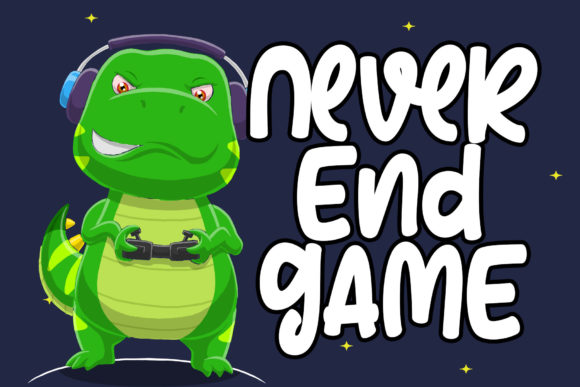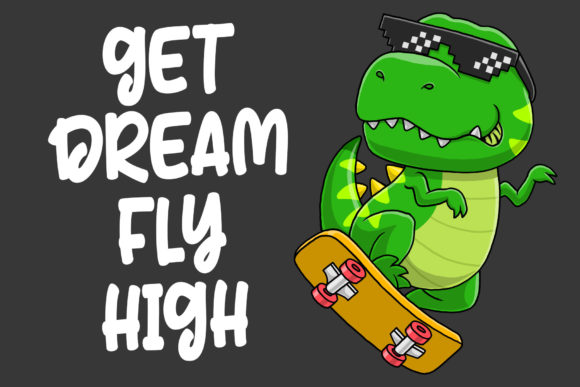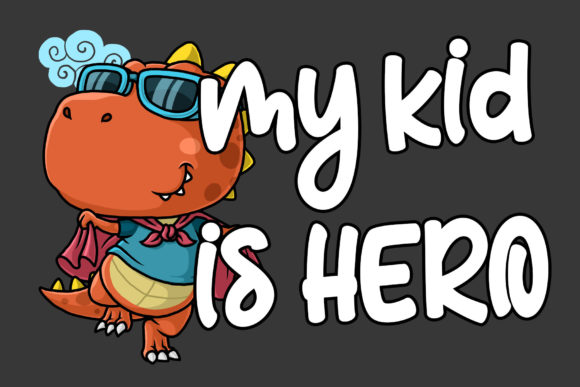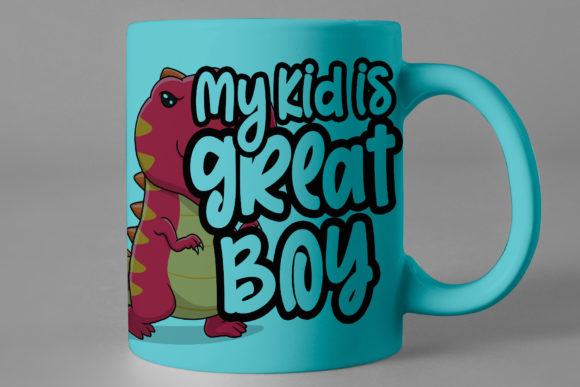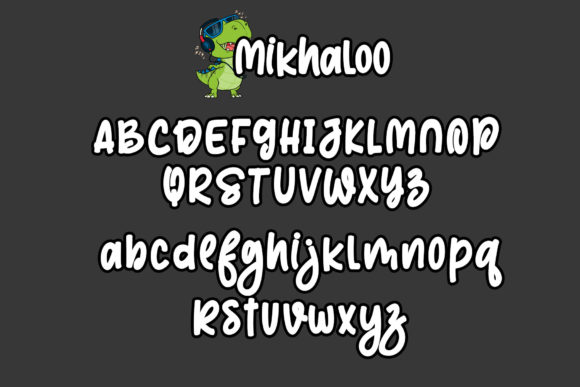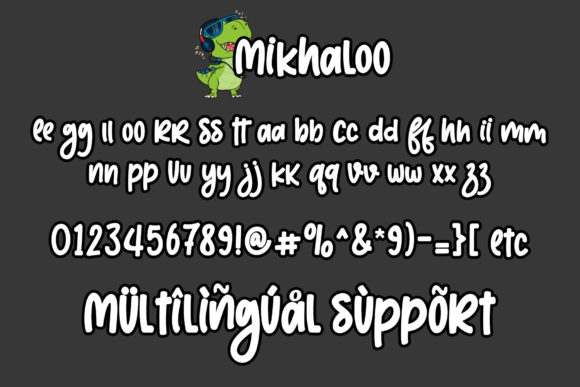
Introduction to Mikhaloo Font
Have you ever been working on a creative project and wished you had the perfect font to bring your vision to life? As designers, we’ve all been there – staring at a blank canvas, trying to decide on the perfect typography to match our artistic direction. For many of us, the right font can be the difference between a good design and a great one.
That’s where the Mikhaloo Font comes in – a clean and playful display font that’s sure to elevate your design game. With its high-quality glyphs and swashes, this font is the perfect resource for designers looking to add a touch of whimsy to their projects. And the best part? It’s PUA encoded, making it easy to access and use all of its features.
Whether you’re working on a commercial project or just need a design resource for a personal creative endeavor, the Mikhaloo Font is an excellent choice. With its transparent background and free download option, you can experiment with this font without any limitations – the only limit is your imagination!
Key Features of Mikhaloo Font
- High-quality, free font design resource ideal for creative projects
- Features a transparent background, allowing for easy customization and versatility in your design
- Designed with a unique, modern aesthetic, making it perfect for contemporary creative projects
- Includes a range of glyphs and characters, ensuring comprehensive support for your design needs
Honest Review: Mikhaloo Font
As a designer, I’m always on the lookout for high-quality design resources to elevate my creative projects. Recently, I had the chance to try out the Mikhaloo Font, and I’m here to share my honest thoughts.
- Unique and modern design aesthetic
- Comes with a transparent background, making it perfect for layering
The Mikhaloo Font is a great addition to any design library, and its modern design aesthetic makes it perfect for a variety of creative projects. I particularly appreciate the transparent background, which allows for seamless layering and customization.
- Only available in a few font styles, which may limit its versatility
- Not ideal for projects requiring a more traditional or formal font
Overall, I’m impressed with the Mikhaloo Font’s quality and design. While it may have some limitations, it’s a solid choice for designers looking for a modern and free design resource.
How to Use Mikhaloo Font
The Mikhaloo Font is a versatile design resource that offers a high-quality, elegant script style perfect for various creative projects. With a transparent background, this font can be easily customized to suit your needs.
The Mikhaloo Font is ideal for various creative projects, including:
- Typography-based art
- Personalized gifts and cards
To get the most out of the Mikhaloo Font, experiment with different font sizes, colors, and combinations to create unique and eye-catching designs. You can also pair it with other fonts to add depth and visual interest.
Alternatives to Mikhaloo Font
Open Sans is a modern sans-serif font that’s highly legible and suitable for use in a variety of design projects. It’s available for free download and can be used in both web and print designs. Open Sans is a great alternative to Mikhaloo Font for designers who need a clean and simple font for their creative projects. However, it lacks the unique character of Mikhaloo Font, making it a more conservative choice.
Can I customize the Mikhaloo Font to suit my design requirements?
Yes, the Mikhaloo Font is highly customizable, allowing you to adjust its size, color, and style to fit your design project’s needs. You can also use the font in combination with other design elements, such as graphics and images, to create a unique and visually appealing design. Additionally, the font’s transparent background makes it easy to overlay on images or other design elements.